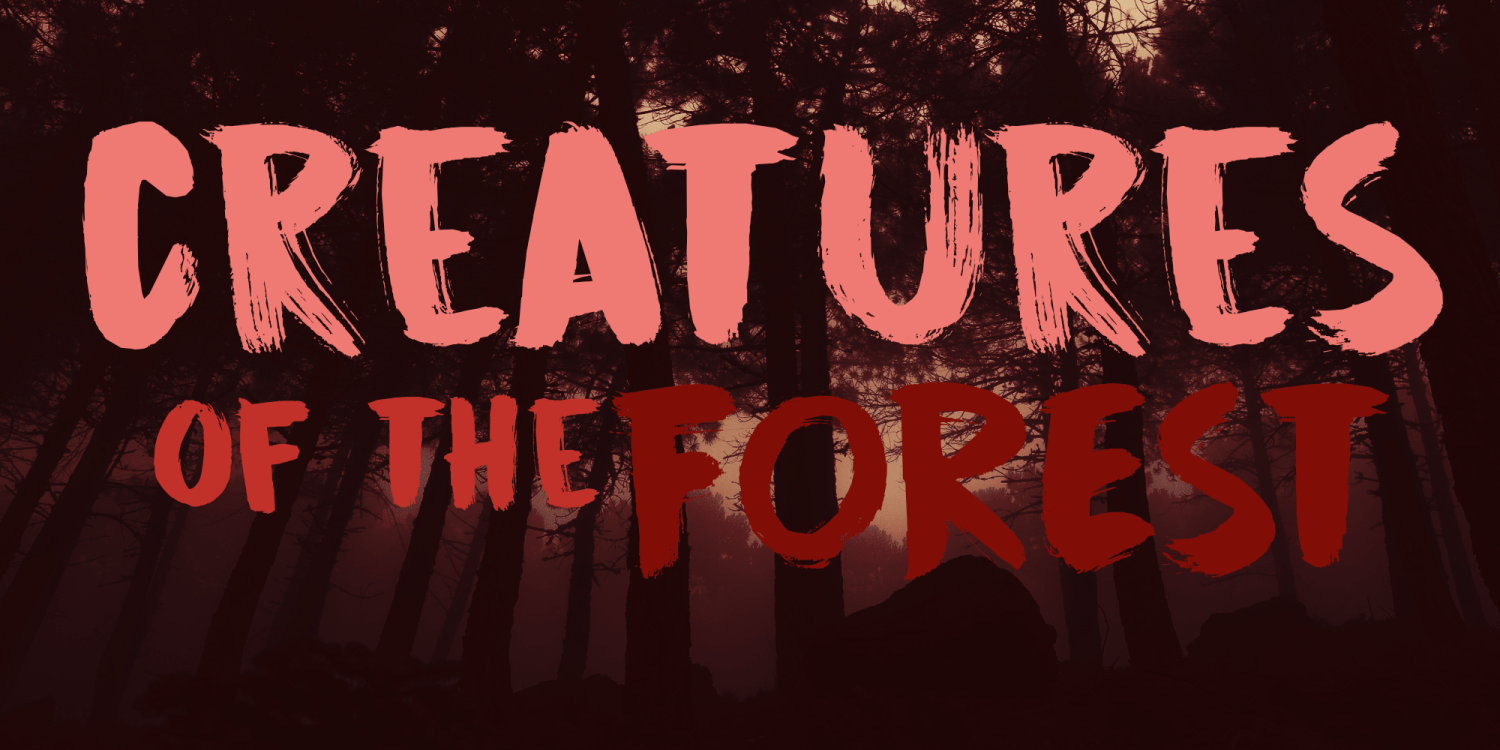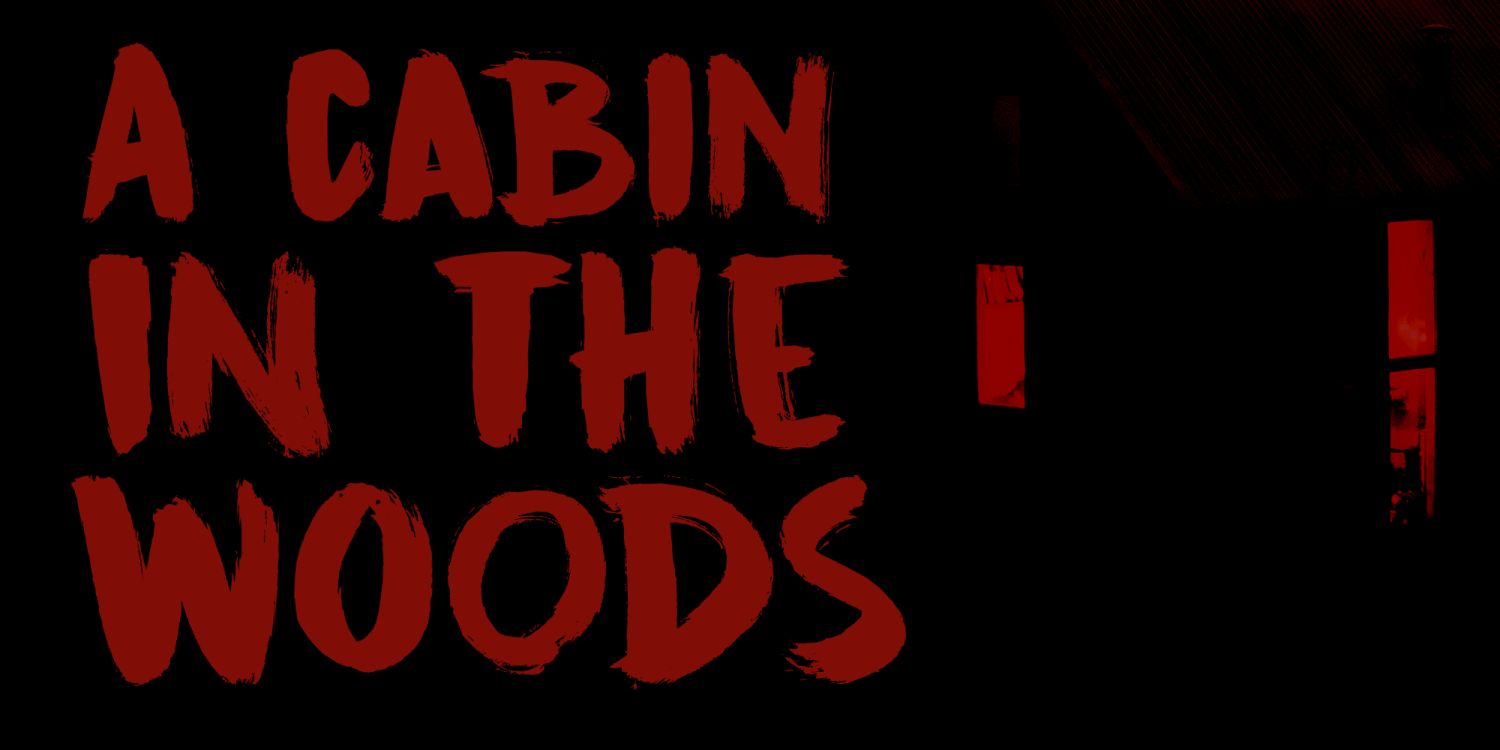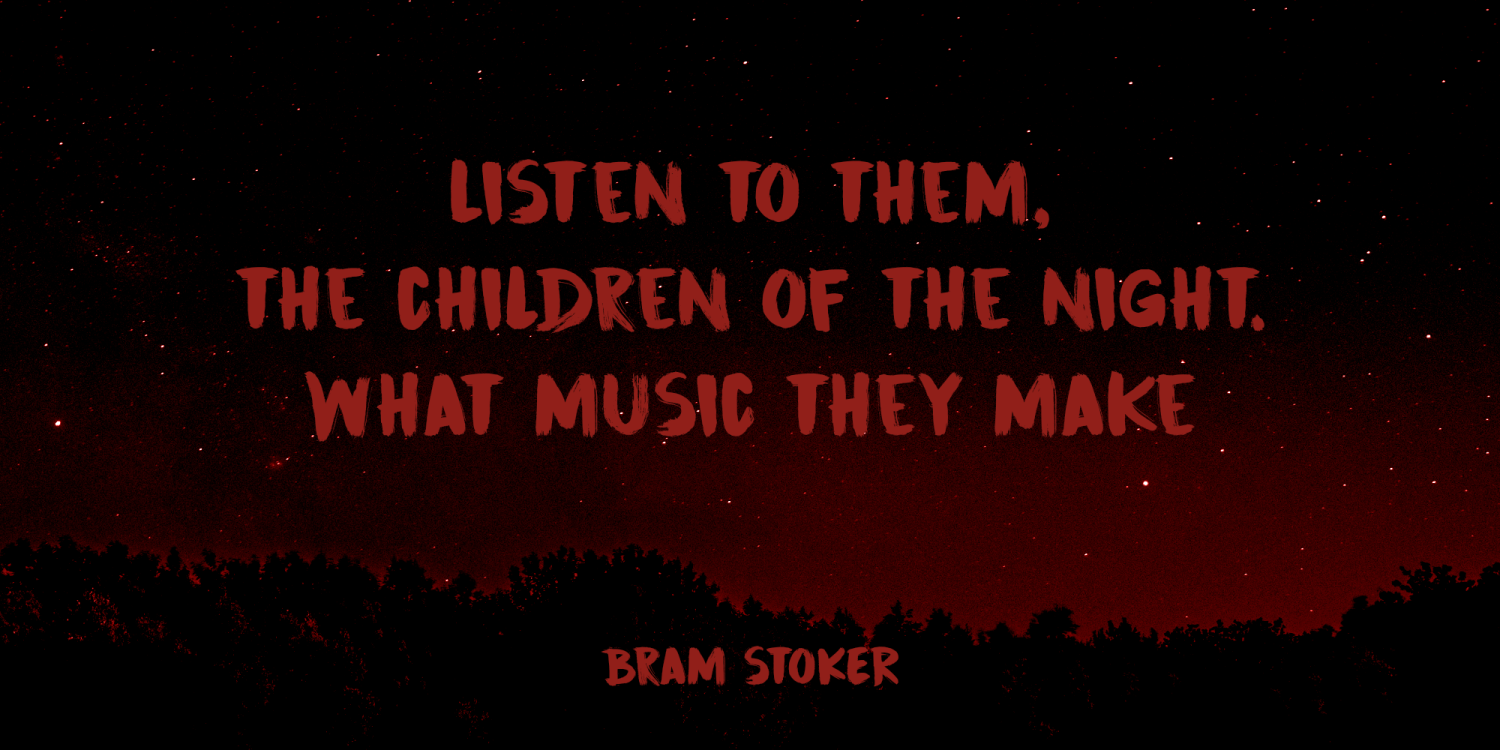
About Cinnabar Brush
Cinnabar Brush is a fonts named after a mineral – mercury sulfide to be precise. I quite like the name and the color, so naming a font after it made sense. Cinnabar Brush is a very bold, very outspoken brush font. It is all caps, but upper and lower case…